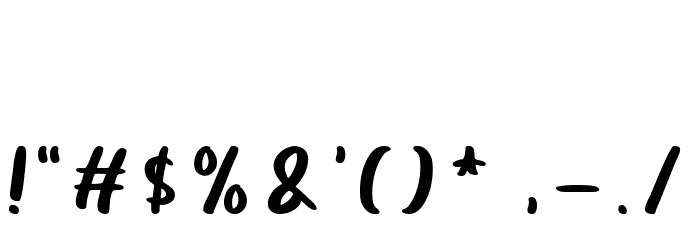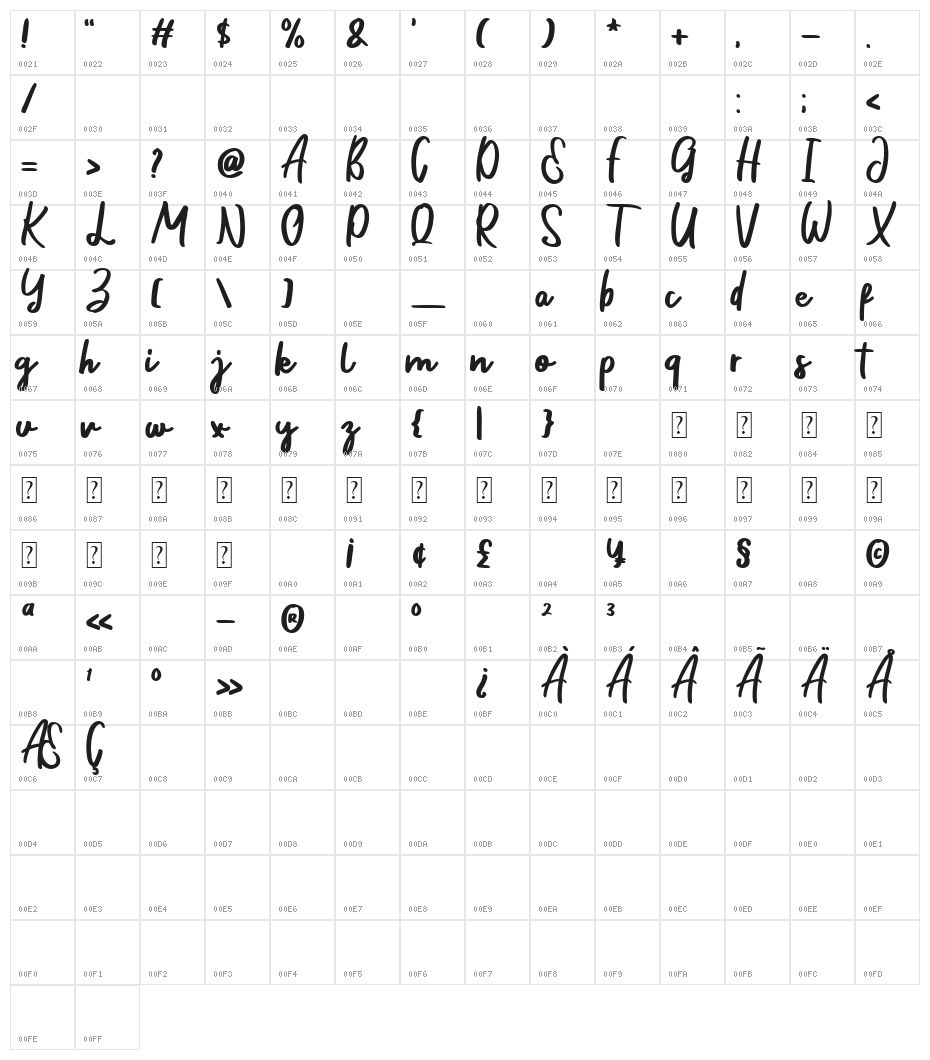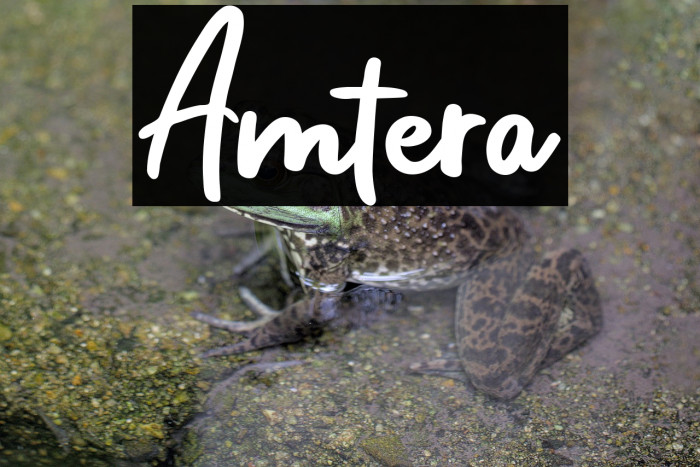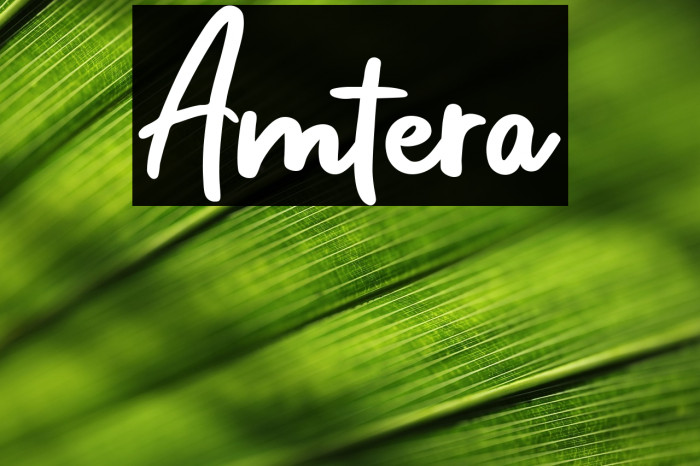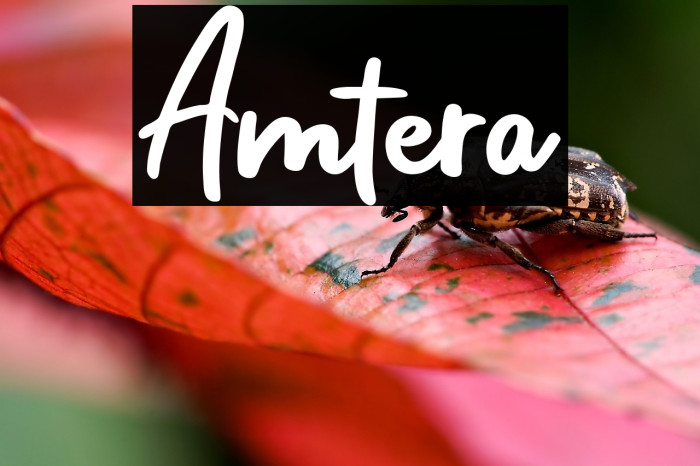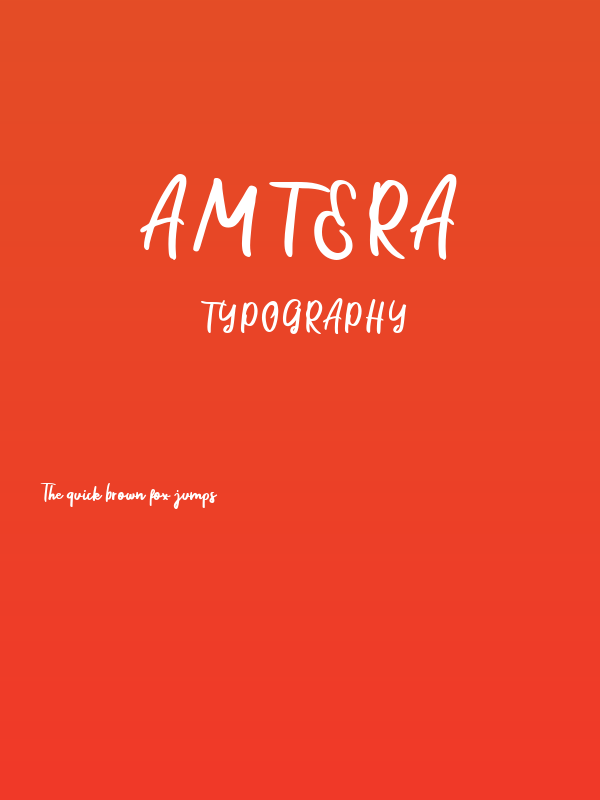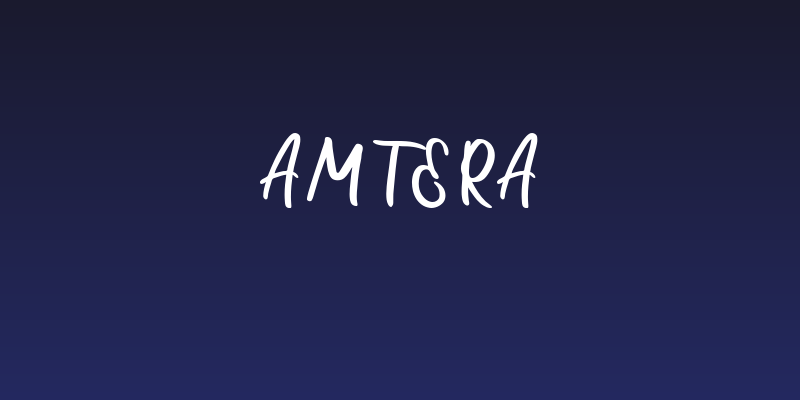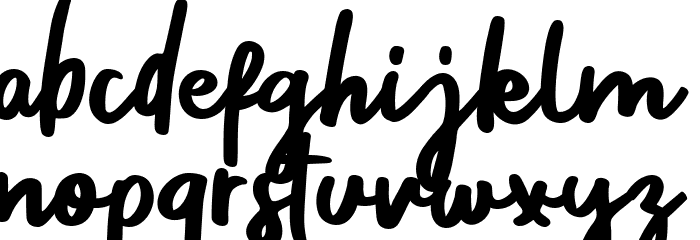
Amtera Font
Amtera Description
This font features a lively and dynamic script style with a handwritten feel. The uppercase letters are bold and slightly slanted, giving a sense of movement and fluidity. The lowercase letters are more compact, with a playful bounce that adds to the overall charm. The strokes are thick and consistent, providing a strong visual impact. The font includes a full set of numerals and a variety of special characters, maintaining the same energetic style throughout. Its informal and friendly appearance makes it suitable for creative and expressive projects.
| Proposed Projects | Ideal for greeting cards, invitations, branding, and social media graphics. |